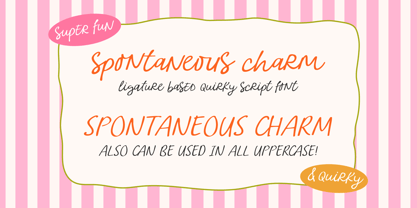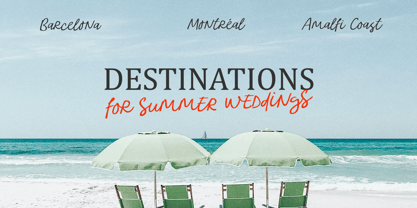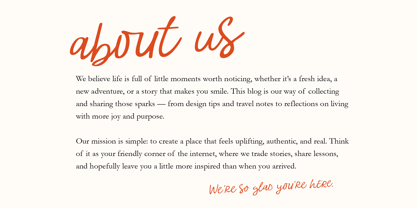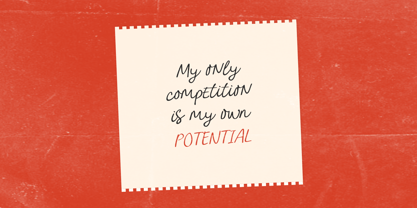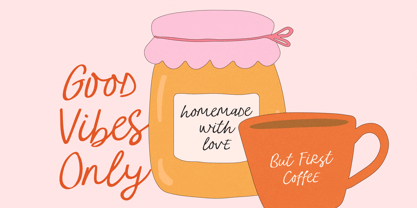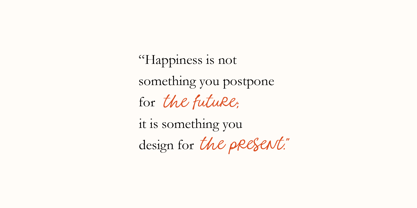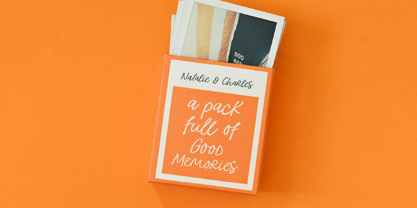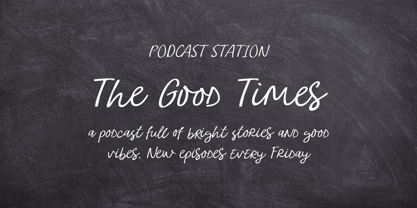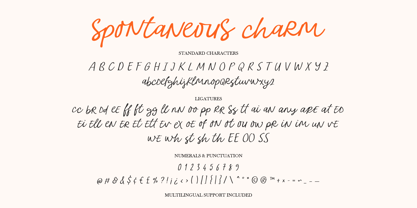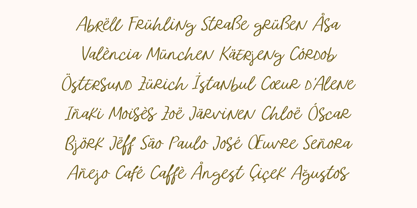
Spontaneous Charm
by Kaya Fonts
The Spontaneous Charm Font Family was designed by Fatih Kaya and published by Kaya Fonts. Spontaneous Charm contains 1 styles. More about this family
Spontaneous Charm is a quirky handwritten script that bursts with personality and warmth. Its playful strokes and lively ligatures create a natural, carefree flow that feels effortless yet full of character. Perfect for projects that call for a friendly, creative touch, this font shines in logos, invitations, social media graphics, packaging, and more. Whether you’re designing something bold and eye-catching or soft and whimsical, Spontaneous Charm brings that extra spark of fun and authenticity to your work.